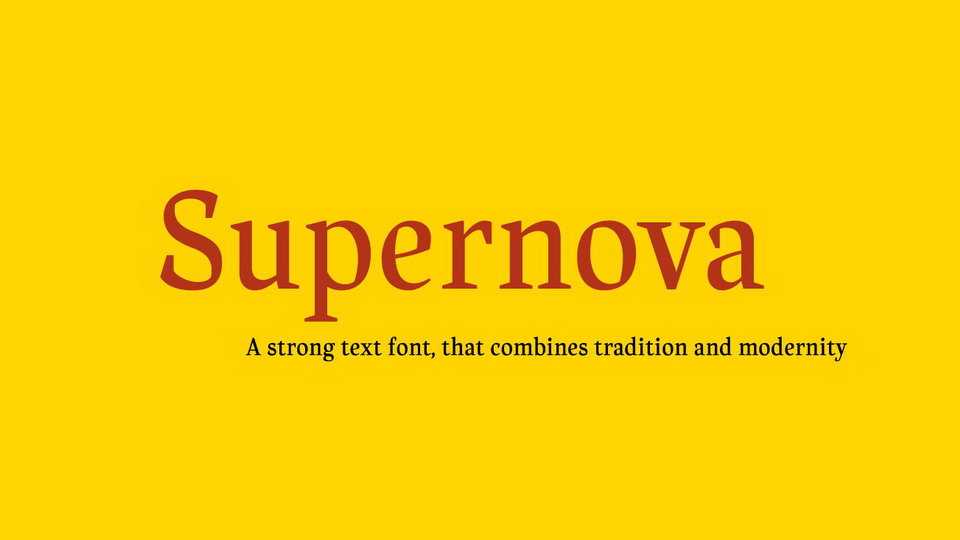
Download Supernova typeface, a strong serif font family in three weights that combines tradition and modernity. Supernova is a text typeface that also works great for titling.
Designer: Lorenzo Castelli